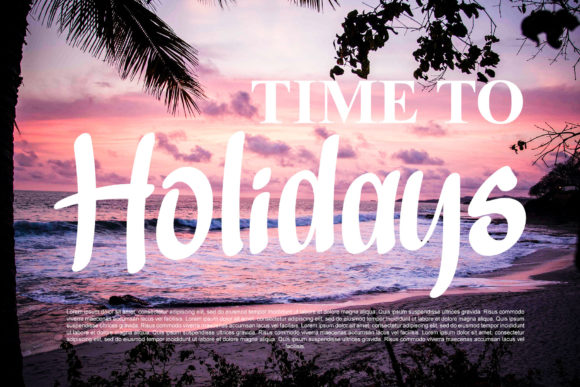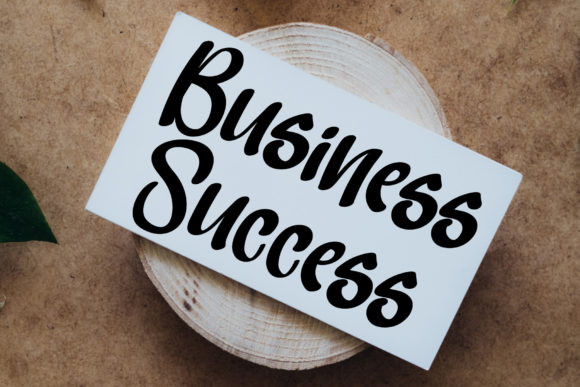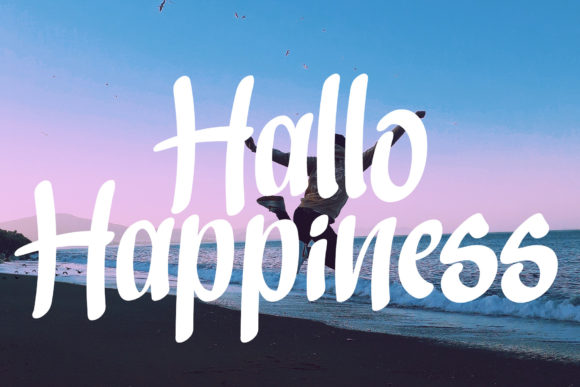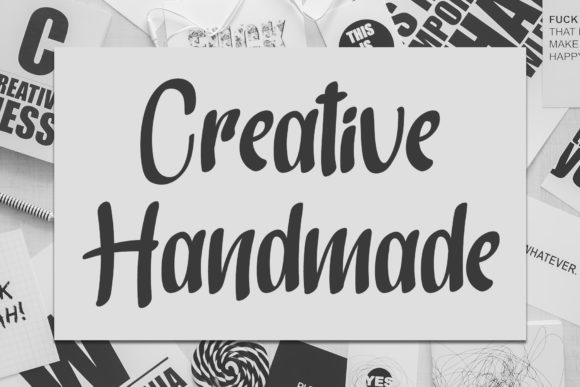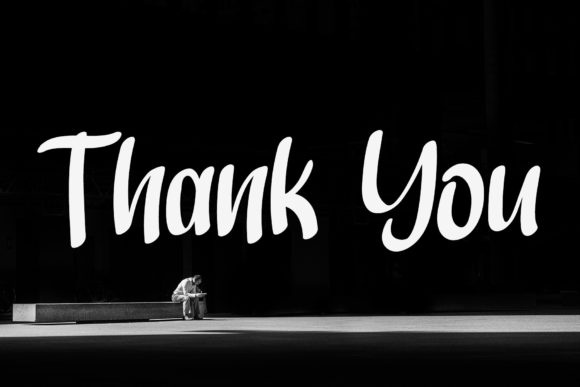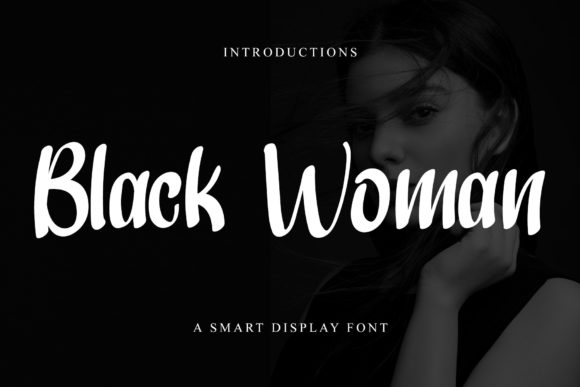
The Ultimate Guide to Black Woman Font: A Designer’s New Best Friend
I’ll never forget the time I was working on a project for a client who wanted a fun, playful vibe. I had all the design elements in place, but I was struggling to find the perfect font. That’s when I stumbled upon Black Woman Font, and it instantly became the missing piece to my design puzzle. In this article, I’ll share my experience with this beautiful font, its features, and how to make the most of it in your designs.
An Honest Review of Black Woman Font
So, what makes Black Woman Font so special? Let’s dive into the good stuff! 😊
- ✨ Simple and Friendly: Black Woman Font is a handwritten font that’s both simple and friendly. It’s perfect for designs that need a personal touch.
- ✅ Cute and Adaptable: This font is not just cute; it’s also incredibly adaptable. You can use it for a wide range of design projects, from invitations to social media graphics.
- 💕 Fun and Playful: Black Woman Font adds a fun and playful touch to any design. It’s perfect for designers who want to create engaging and interactive content.
Of course, no font is perfect, and Black Woman Font has a few quirks:
- 🤔 Limited Formality: Black Woman Font is a handwritten font, which means it’s not suitable for formal or professional designs that require a more traditional look.
- ⚠️ Glyph Limitations: While Black Woman Font has a range of glyphs and OpenType features, it’s not as extensive as some other fonts on the market.
One of the best things about Black Woman Font is its range of OpenType features and glyphs. Here are some tips for making the most of these features:
- Use stylistic alternates to add variation and interest to your text.
- Experiment with different glyphs to add visual interest to your design.
- Take advantage of OpenType features like ligatures and swashes to add a touch of elegance to your design.
The Backstory Behind Black Woman Font
Black Woman Font was designed with the intention of creating a friendly and approachable font that’s perfect for designs that need a personal touch. The designer wanted to create a font that’s both simple and elegant, with a range of OpenType features and glyphs to add depth and interest.
- Q: What type of designs is Black Woman Font best suited for?
- A: Black Woman Font is perfect for designs that need a fun, playful vibe, such as invitations, social media graphics, and blog posts.